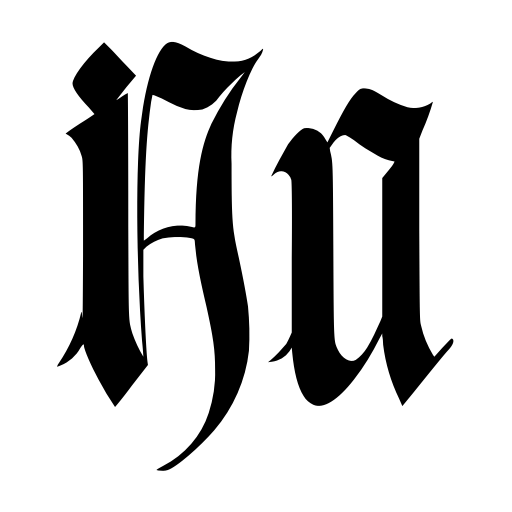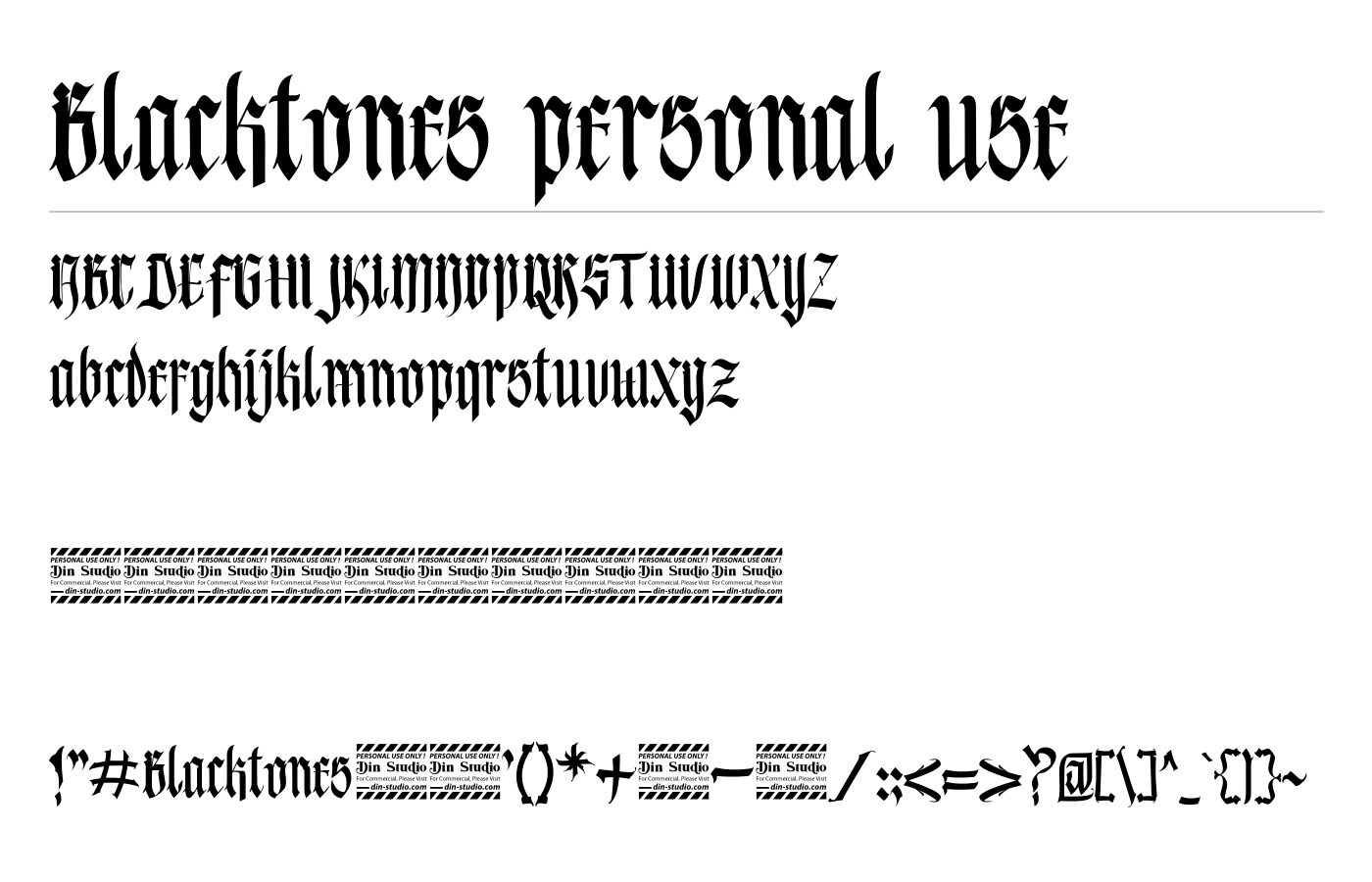
Blacktones is a striking blackletter serif font with bold, sharp strokes and condensed letterforms that evoke a traditional Gothic style. Its strong contrast and elaborate shapes give it a dramatic, old-world feel, making it perfect for creating vintage-inspired branding, headlines, or designs that demand a historical or edgy impact. This distinctive font works well in logos, posters, or editorial projects seeking a bold, classic look with a modern twist.
Blacktones personal use Font
About Blacktones personal use Font
| Font family | Blacktones personal use Font |